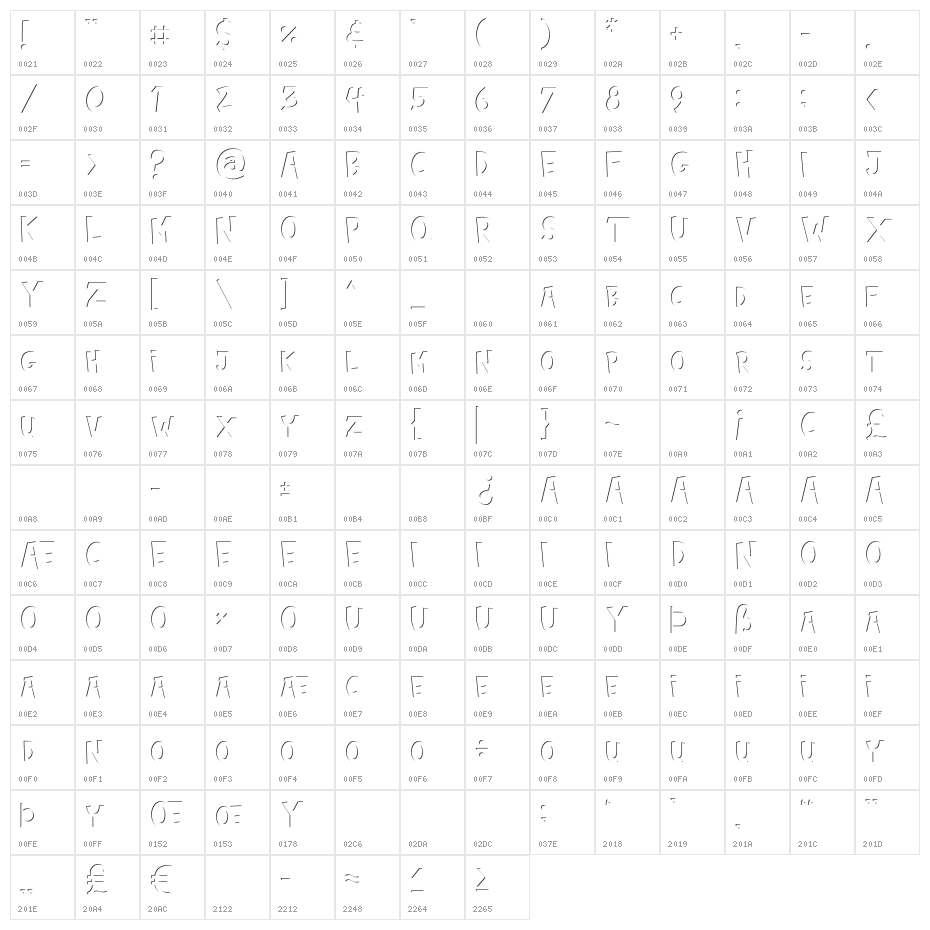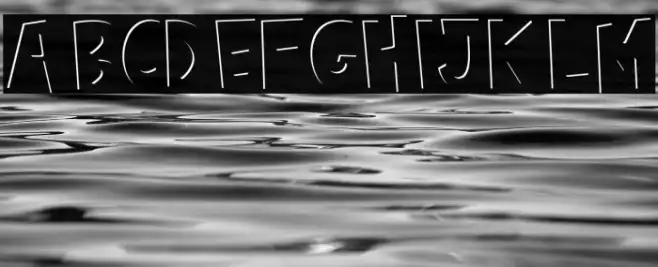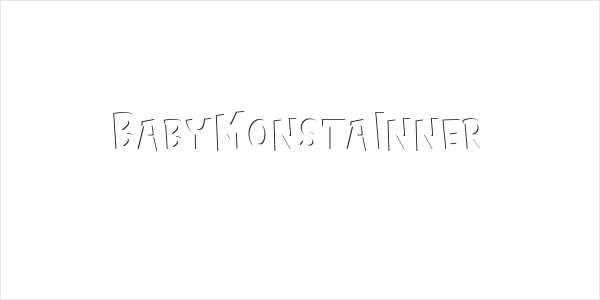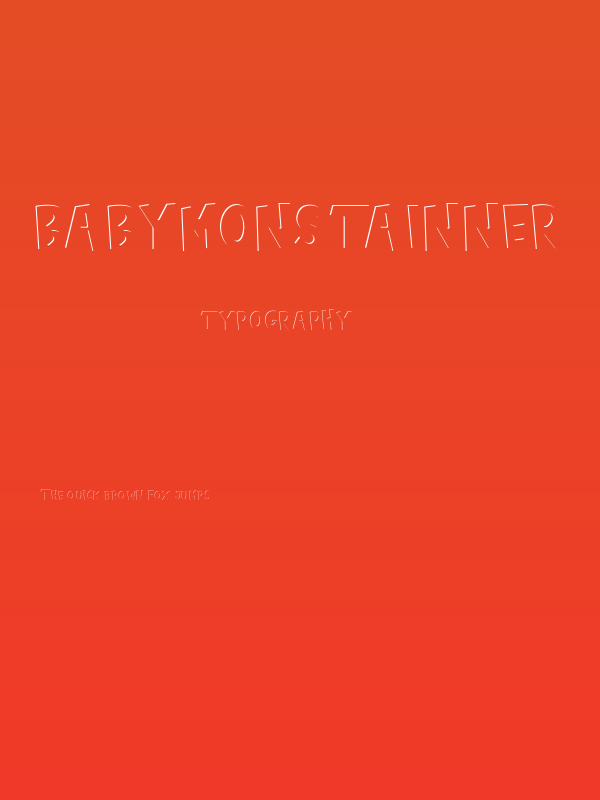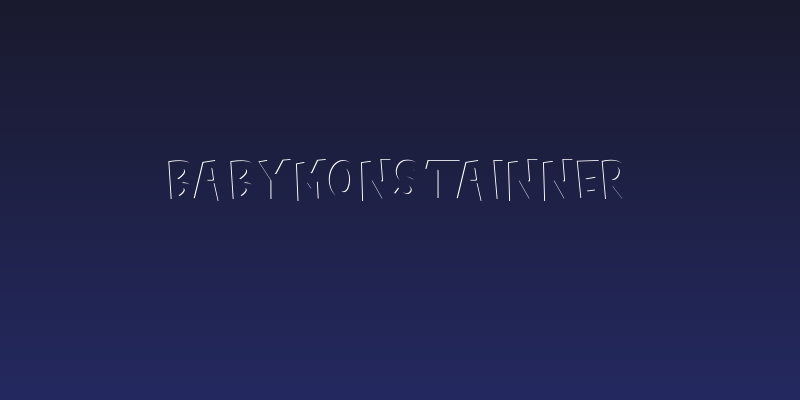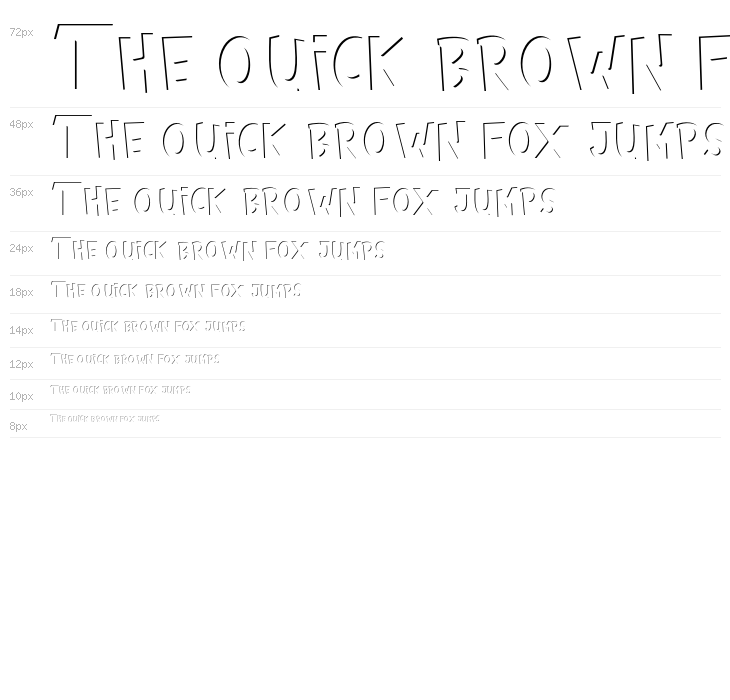
BabyMonstaInner Font
BabyMonstaInner Description
This font features a playful and quirky design with a stencil-like appearance. Each character is composed of bold, angular lines with cut-out sections, giving it a unique and dynamic look. The uppercase and lowercase letters maintain a consistent style, with sharp edges and geometric forms. Numbers and special characters follow the same design principles, ensuring uniformity across the font. The overall aesthetic is modern and artistic, making it suitable for creative and informal projects. Its distinctive style captures attention and adds a fun, energetic vibe to any text.
| Proposed Projects | Ideal for children's book covers, playful branding, posters, and creative digital content. |